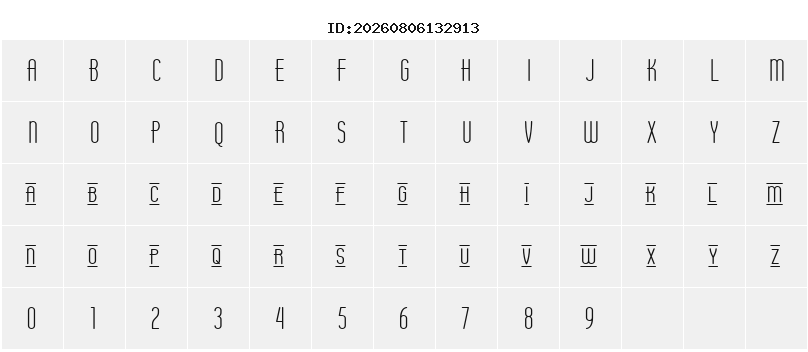
About Operator Nine BTN Lined.ttf
Operator Nine BTN Lined.ttf is a modern, elegant sans-serif font designed for ultimate readability and visual harmony. Perfect for branding, headlines, web design, and print materials.